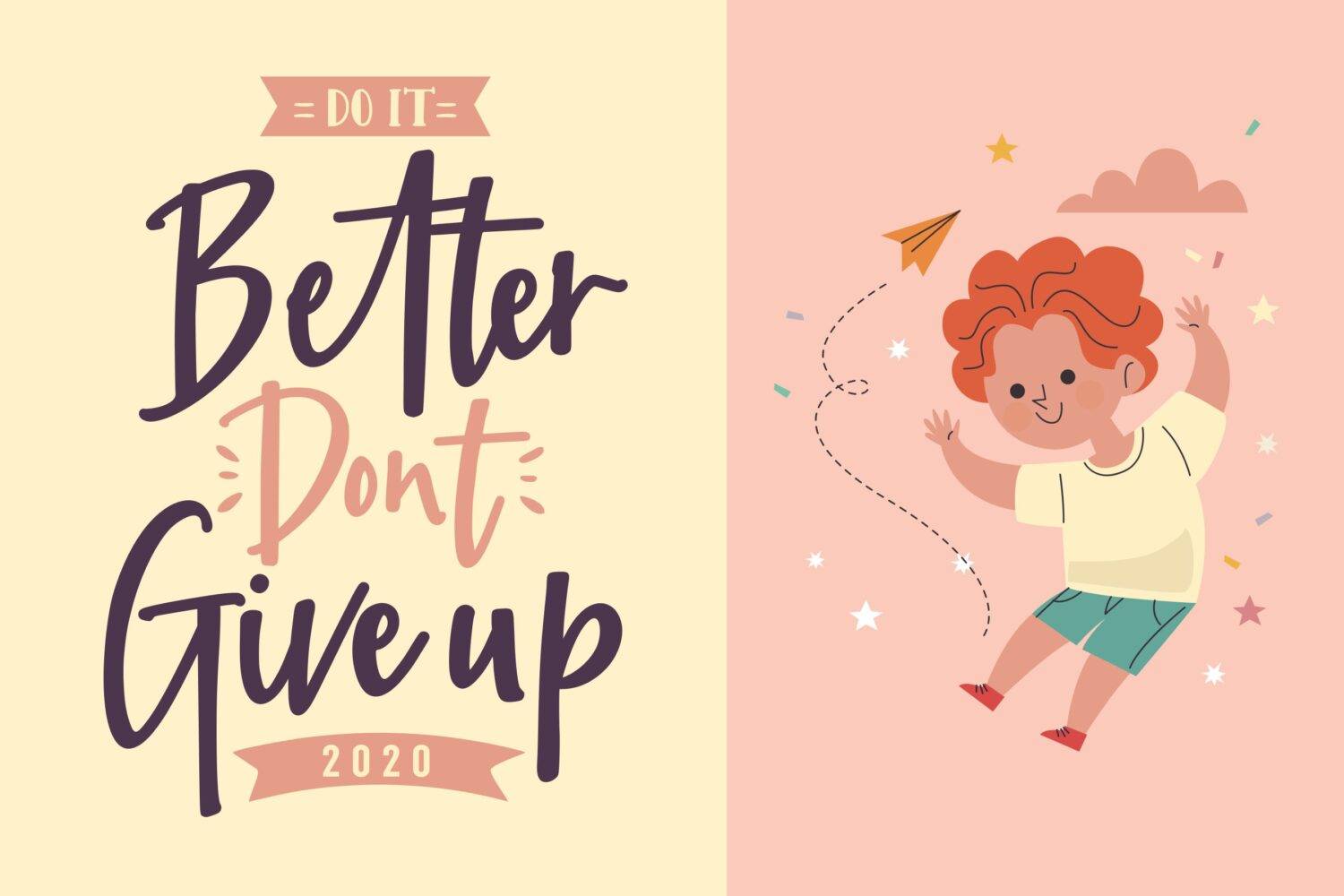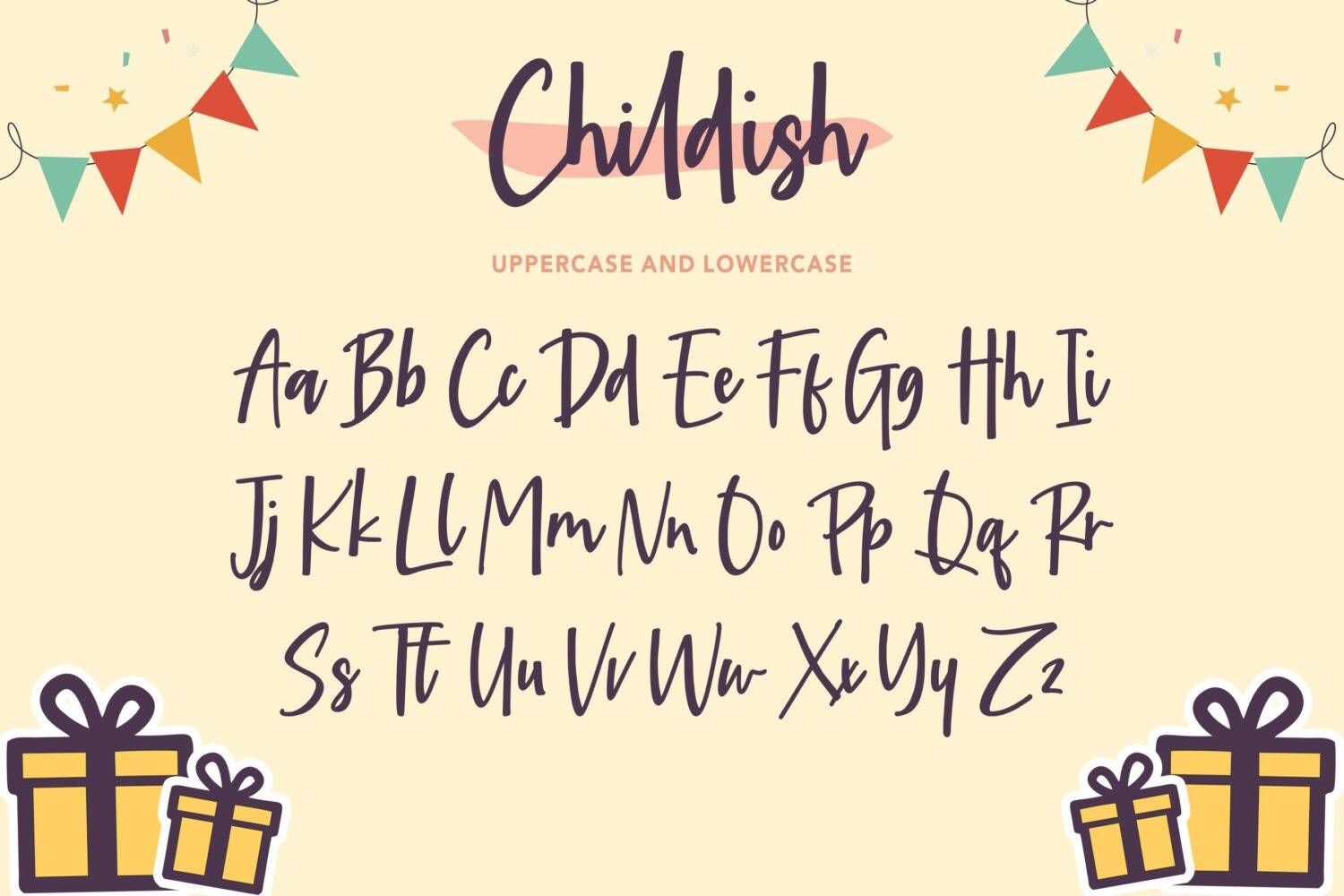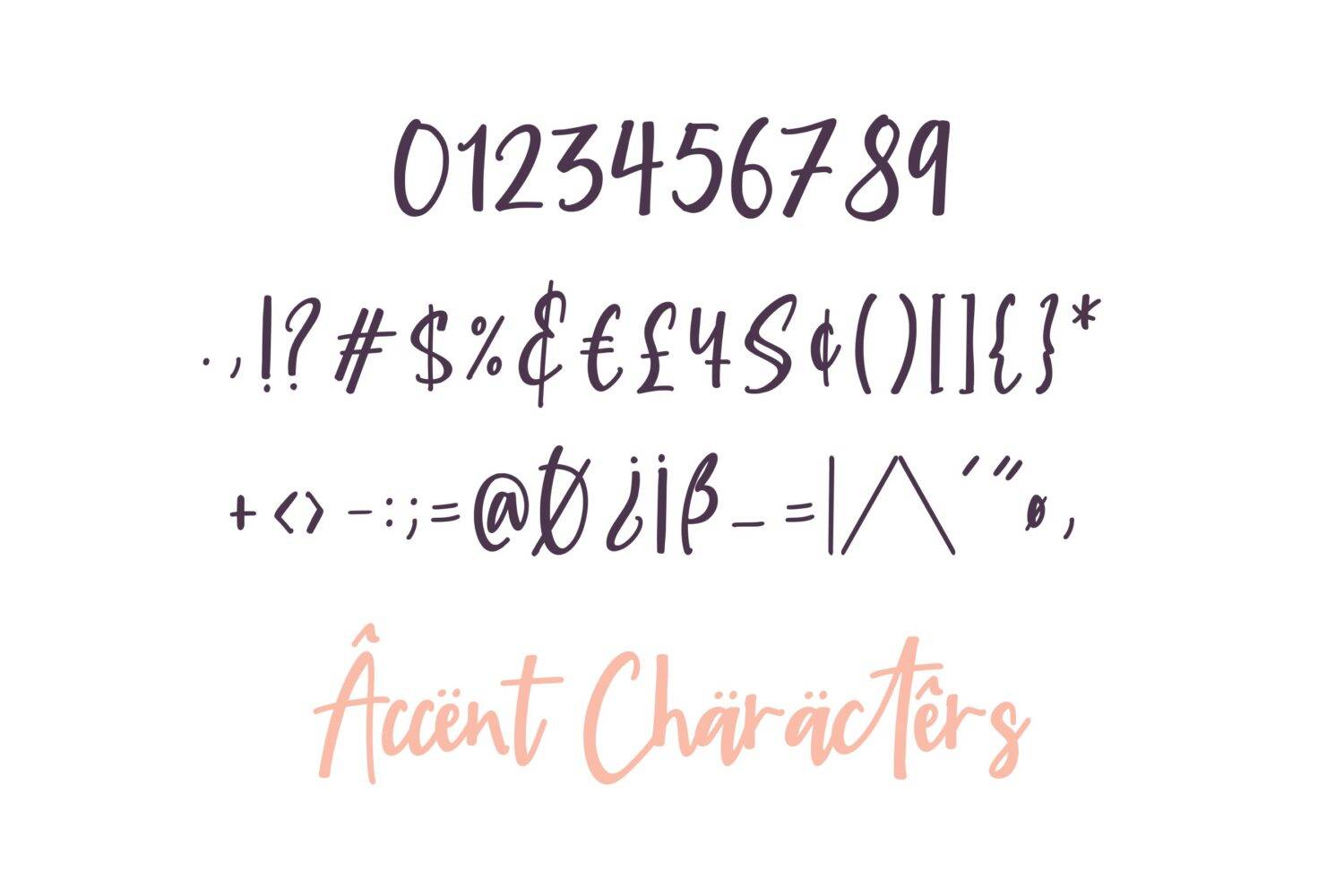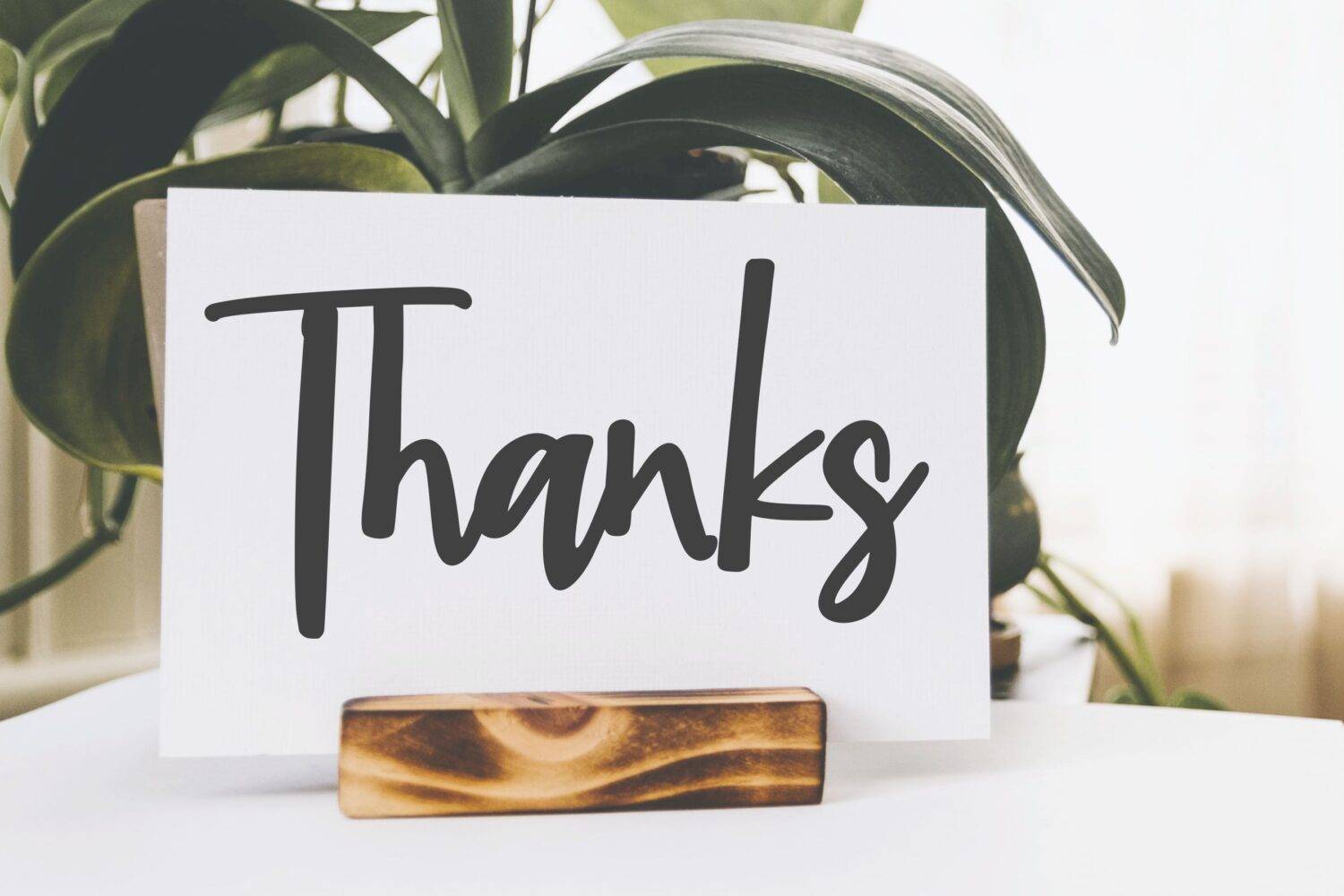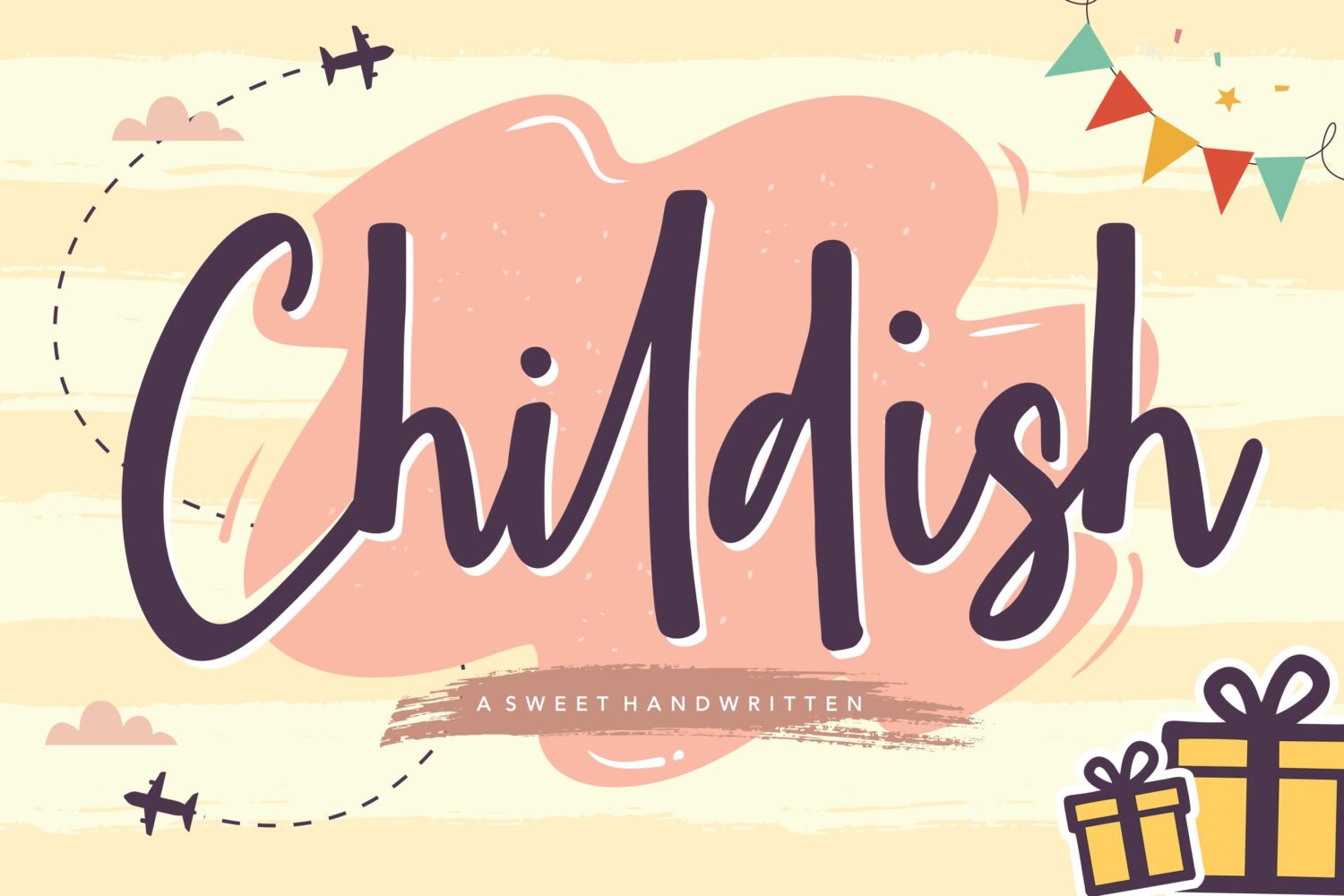
Childish Sweet Handwritten is a playful and lively script font that mimics natural, casual handwriting with a warm, approachable feel. Its tall, slender letterforms with varied stroke widths and slightly irregular shapes give it an energetic, youthful vibe, making it perfect for children’s products, informal branding, and creative projects that seek an authentic, friendly touch. This font works well in headlines, invitations, and packaging where a fun and personal style is desired.
Childish Sweet Handwritten Font